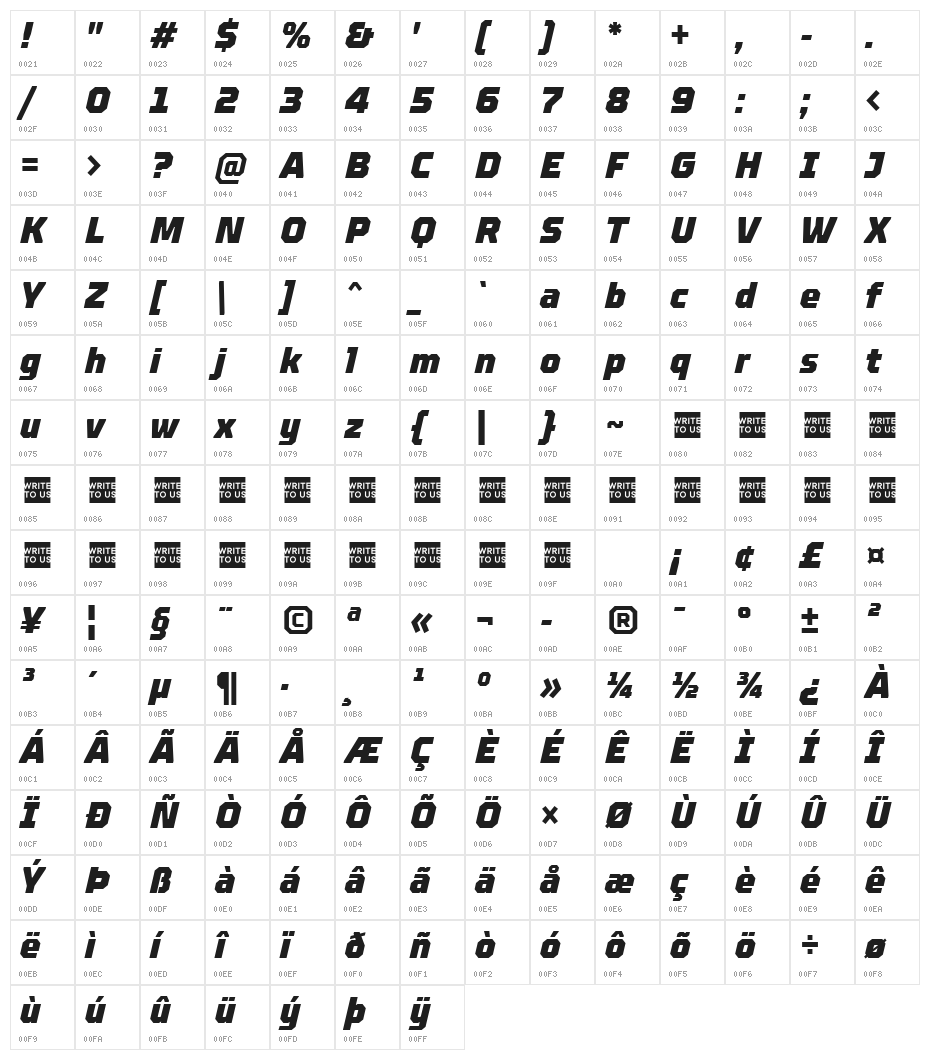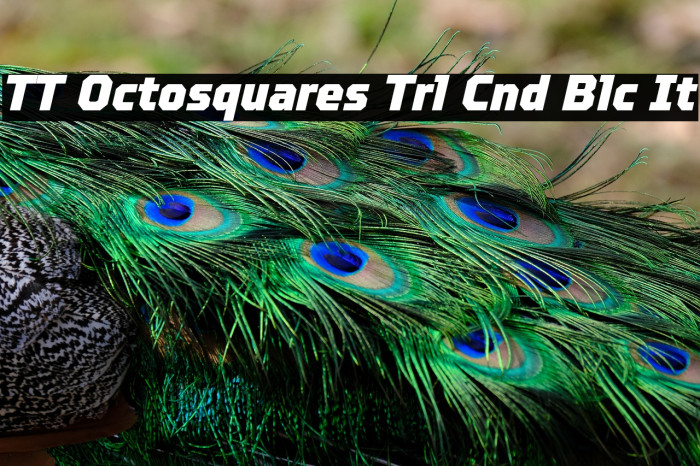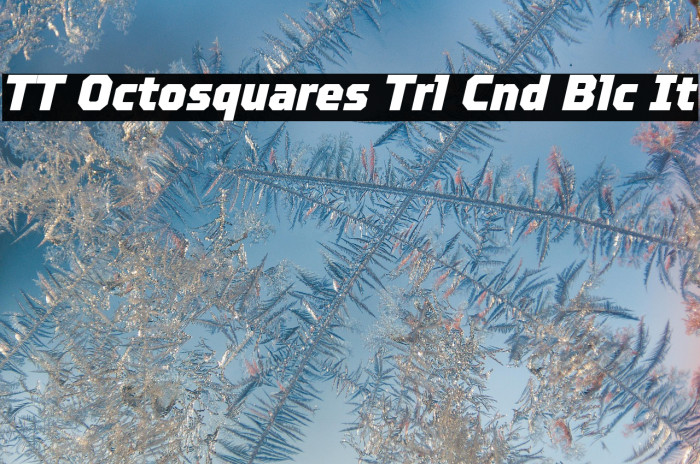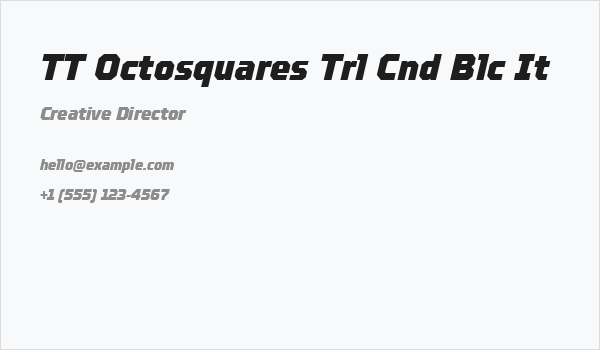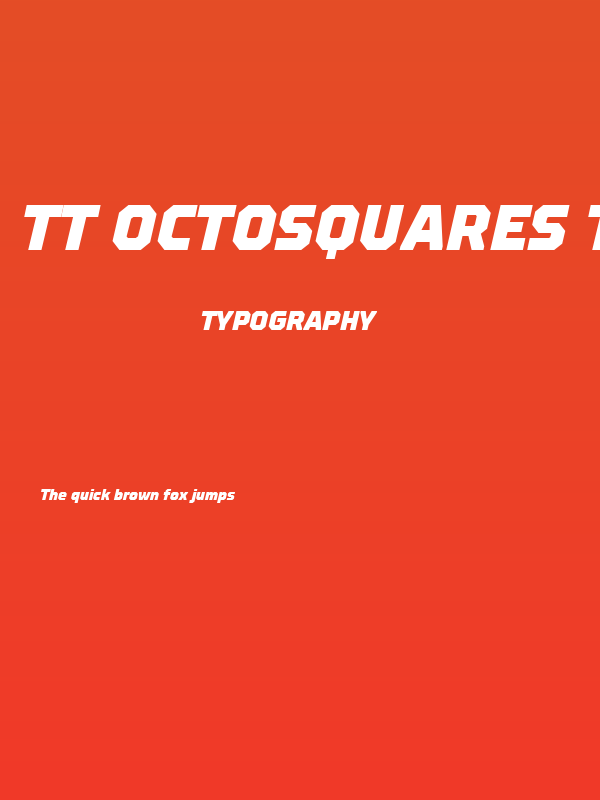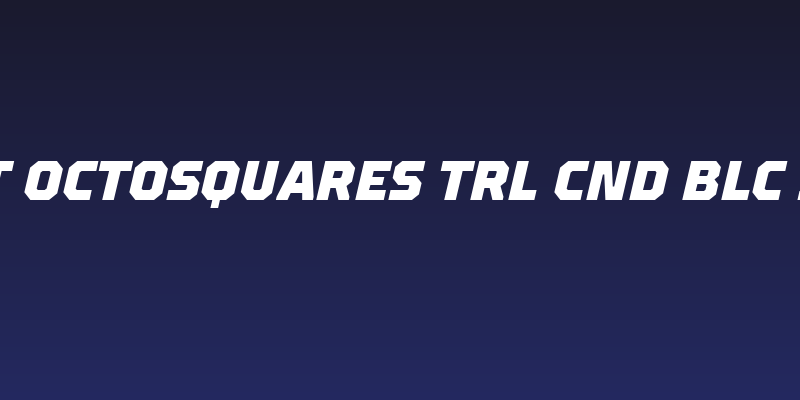
TT Octosquares Trl Cnd Blc It Font
TT Octosquares Trl Cnd Blc It Description
This font features a bold and condensed style with a distinctly modern and geometric appearance. The characters are designed with sharp angles and straight lines, giving them a futuristic and dynamic look. The italic slant adds a sense of motion and urgency, making it suitable for attention-grabbing headlines. The uppercase and lowercase letters maintain a consistent style, and the numerals are equally bold and impactful. Special characters are included, matching the overall aesthetic with their angular design.
| Proposed Projects | Ideal for sports branding, tech company logos, dynamic posters, and futuristic designs. |